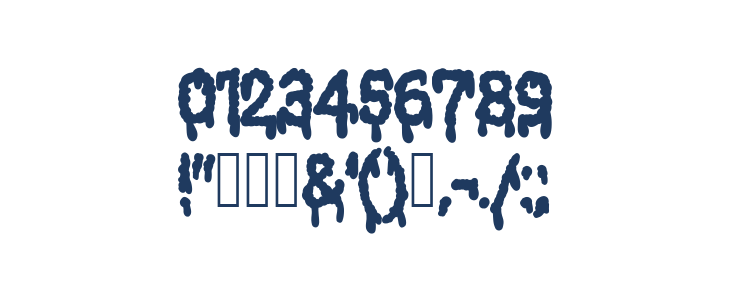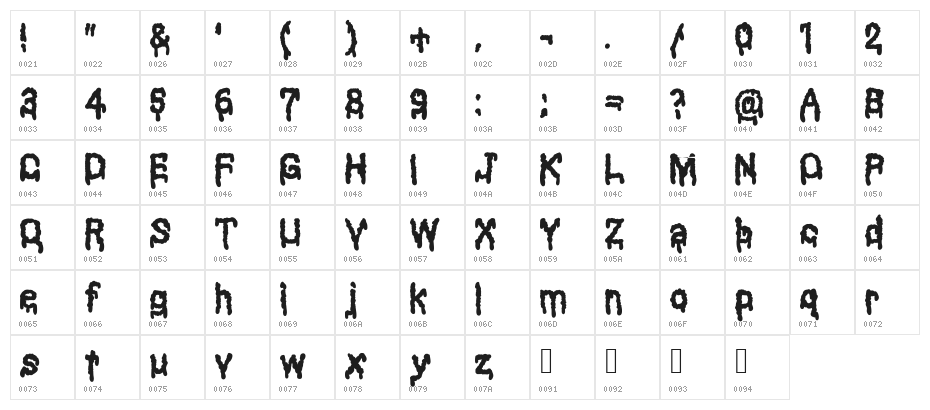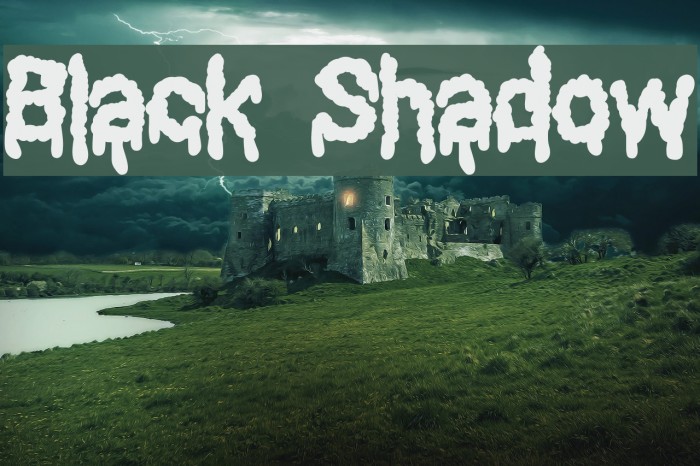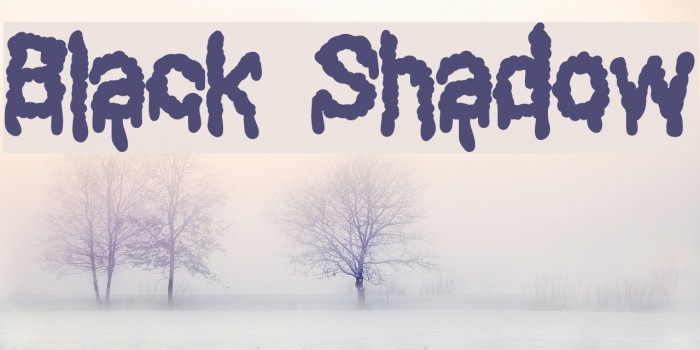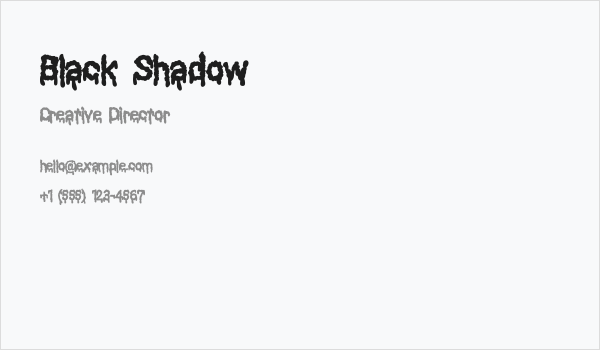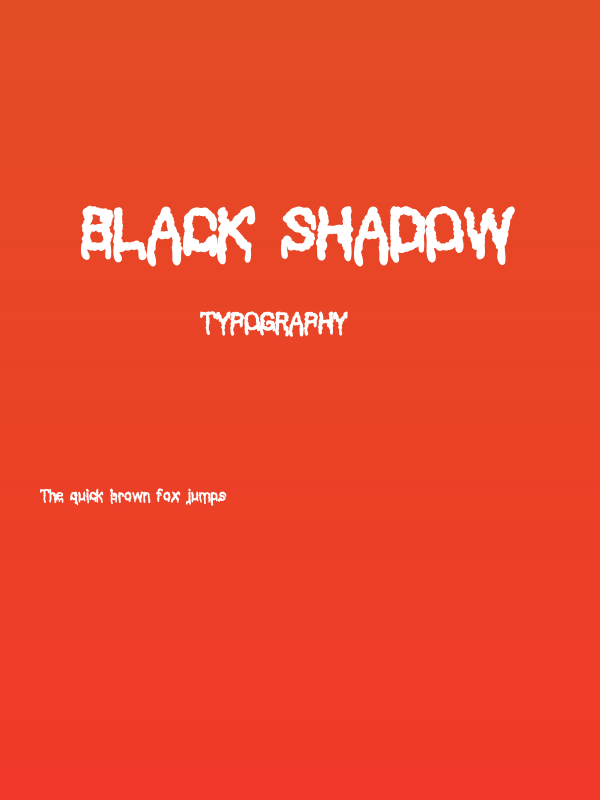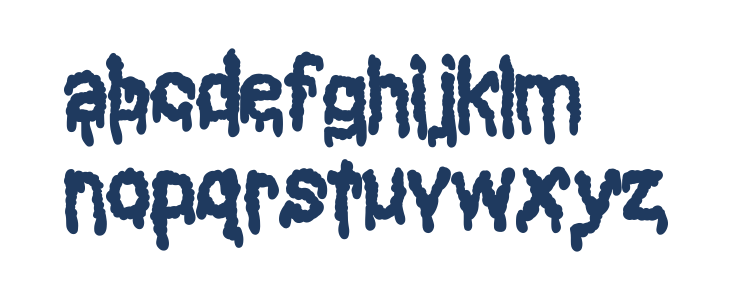
Black Shadow Font
Black Shadow Description
This font features a bold, shadowed style with a unique, organic appearance. The letters are thick and have a textured, almost dripping effect that gives them a dynamic and eye-catching look. The uppercase and lowercase letters maintain a consistent style, with rounded edges and irregular outlines that suggest movement. The numbers and special characters follow the same design principles, ensuring a cohesive appearance across all glyphs. This font's distinctive style makes it ideal for projects that require a strong visual impact.
Proposed ProjectsIdeal for poster designs, album covers, event flyers, and branding that requires a bold and artistic touch.